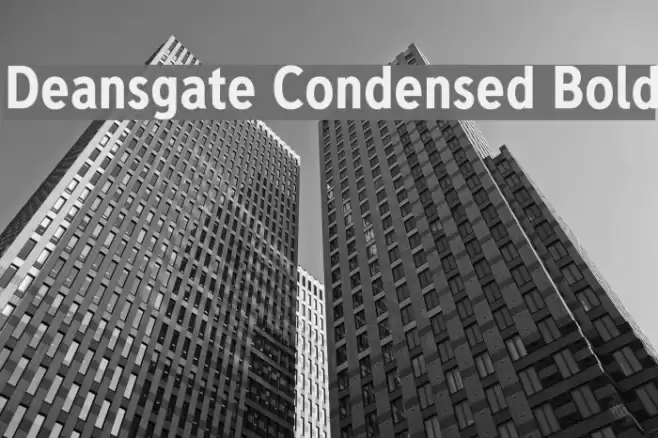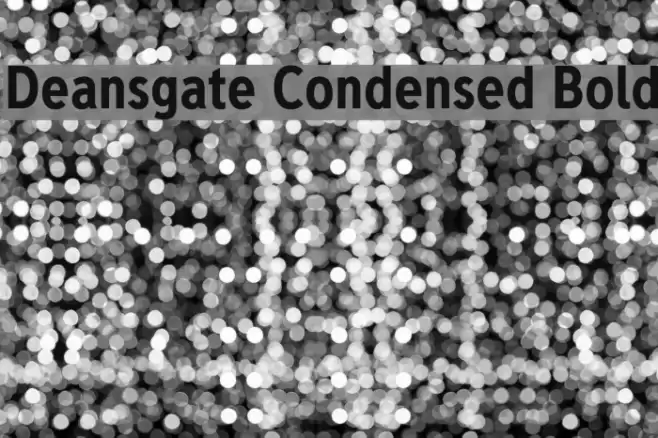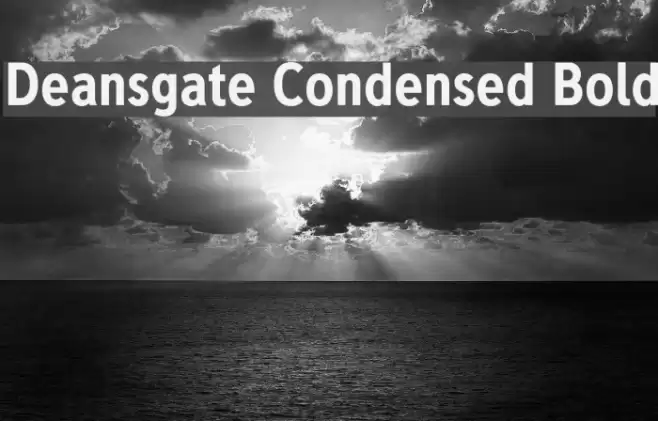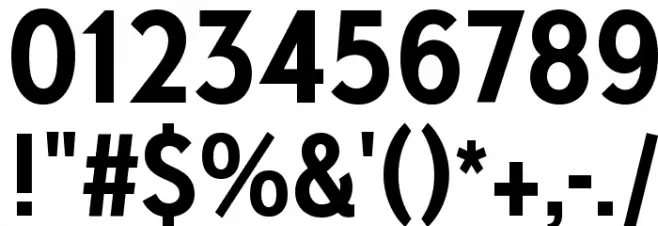
Deansgate Condensed Bold Font
Deansgate Condensed Bold Description
This font features a bold and condensed style, characterized by its strong, clean lines and modern appearance. The uppercase letters are uniform in height, creating a cohesive look, while the lowercase letters maintain a consistent baseline. The numerals are clear and easily distinguishable, making them suitable for various applications. The special characters are well-defined, adding versatility to the font. Its overall design is straightforward and impactful, ideal for making a statement in any design project.
A bold, condensed font with clean lines and a modern style from Uncategorized fonts.
- Proposed Projects: Ideal for headlines, posters, branding, and advertising where a strong visual impact is needed.